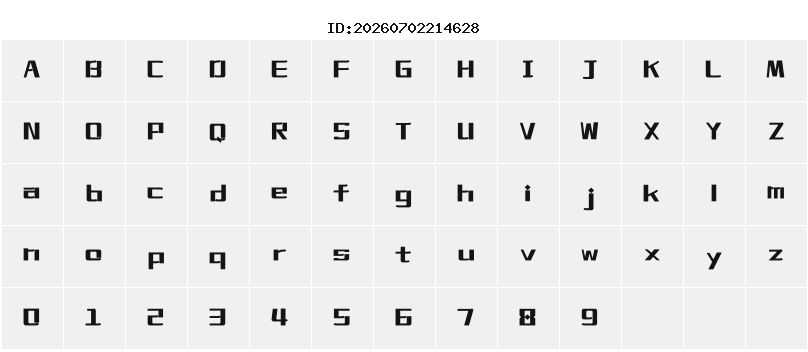
064-上首奕星体 Preview
• Font Name: 064-上首奕星体
• Full Font Name: 064-上首奕星体
About 064-上首奕星体.ttf
064-上首奕星体.ttf is a modern, elegant sans-serif font designed for ultimate readability and visual harmony. Perfect for branding, headlines, web design, and print materials.